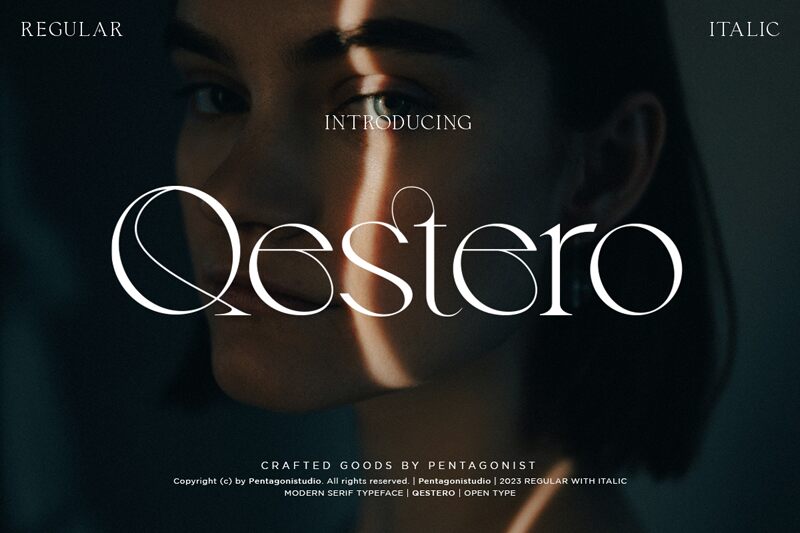
QESTERO Regular
Qestero font designed by Pentagonistudio is an elegant light serif with delicate vintage vibes. It combines sophistication, style, and refinement for a sound display aimed at delivering the message of luxury to its best. Letters are slightly condensed with elongated letter stems and some heavy contrast in the letter construction. Overall, it appears like a light classic font except for the modern touch expressed through some unusual letter strokes.
Use this free serif font to achieve agency branding projects, wedding invitations, greeting cards, social media posts, blog headers, and fashion-related poster designs. Qestero works equally well as body text or headlines in illustrated magazines or high-end product packaging design.